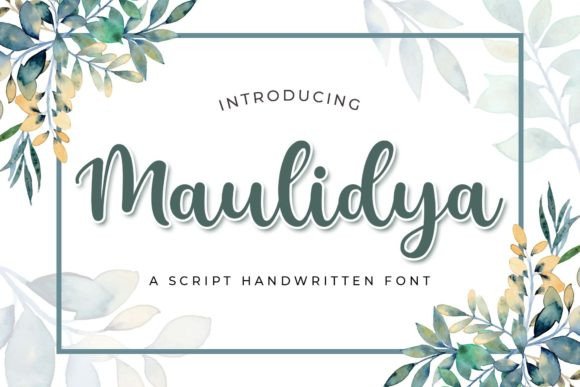
Introducing Maulidya Font, an exquisite script font that captivates with its delicate strokes and graceful flow. Inspired by the art of calligraphy, Maulidya exudes a timeless elegance perfect for adding a touch of sophistication to your creative endeavors.
Journey into a world of refined typography with Maulidya, a font that dances across your screen like a ballerina. Its slender serifs and sweeping curves evoke a sense of ethereal beauty, making it an ideal choice for wedding invitations, greeting cards, and other special occasions.
Maulidya's versatility extends far beyond formal settings. Its playful charm shines through in branding, logos, and social media posts, adding a touch of whimsy and personality to your online presence. Let Maulidya be your creative companion, transforming ordinary designs into captivating works of art.
With Maulidya, you hold the key to unlocking a world of creative possibilities. Whether you're a seasoned designer or just starting out, this font will elevate your projects with its effortless grace and timeless appeal. Embrace the allure of Maulidya and watch your designs blossom into masterpieces.
Unleash your inner artist and let Maulidya guide your imagination. Experience the sheer joy of crafting designs that captivate and inspire. Discover the endless possibilities that await you with Maulidya, your trusted font for creating truly remarkable designs.